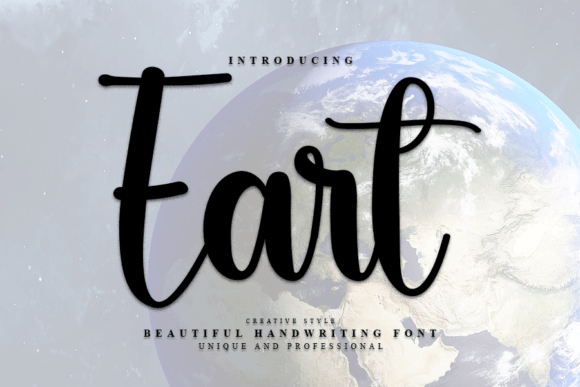
Embark on a calligraphic journey with Eart Font, the exquisite creation of Ade Studio. This captivating script font captivates hearts with its graceful strokes and remarkable versatility.
Eart Font is a testament to the power of penmanship, capturing the essence of handwritten beauty in a digital realm. Its delicate curves and elegant flourishes conjure a sense of nostalgia, reminiscent of handwritten love letters and timeless works of art.
Immerse yourself in a world of limitless creativity with Eart Font. Whether you're crafting heartfelt invitations, designing eye-catching logos, or adding a personal touch to your social media posts, this font will elevate your designs to new heights. Its versatility extends beyond words, making it the perfect choice for designing stunning posters, brochures, and even product packaging that exudes sophistication and charm.
With Eart Font, every word you write becomes a visual masterpiece. Its unique character set and exquisite ligatures create a harmonious flow, adding a touch of elegance and sophistication to your projects. It's a font that speaks volumes, conveying emotions and messages with every letter.
But Eart Font is more than just a font; it's an experience. Its intricate details and flowing curves invite you to explore the depths of creativity and imagination. Let your words dance across the page, adorned with the beauty of Eart Font, and watch as your designs transform into captivating works of art.